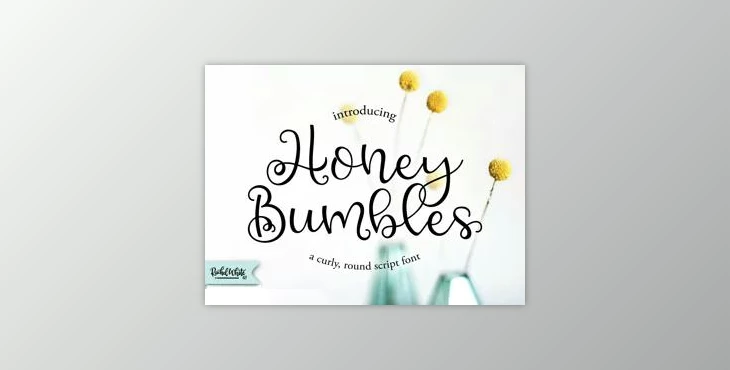
Honey Bumbles - Curly Round Script Font: Introducing Honey Bumbles, a trendy font that has captured the hearts of many! With its delightful curls, rounded loops, and abundance of playful alternates and ligatures, this font offers endless possibilities for creating stunning designs. Its smooth texture and complete PUA encoding make it a favourite among crafters and users of cutting machines.
Each character in Honey Bumbles is carefully crafted with unique curves, swirls, and loops, ensuring that every design stands out with its charm and personality.
Some great features of Honey Bumbles - Curly Round Script Font:
- Alternate glyphs for select characters
- Initial lowercase alternates
- Terminal lowercase alternates
- Ligatures for double letter combinations
- Four options for ampersands